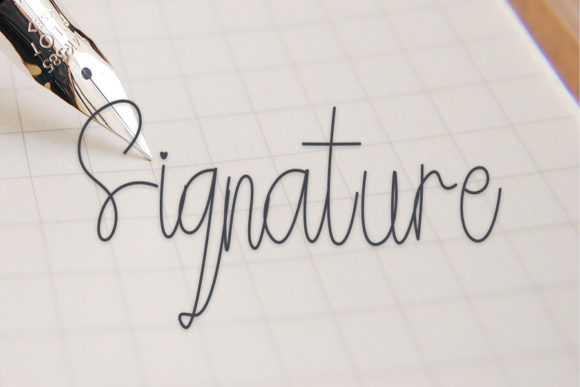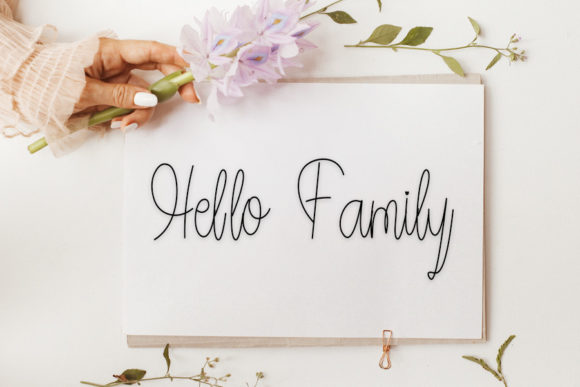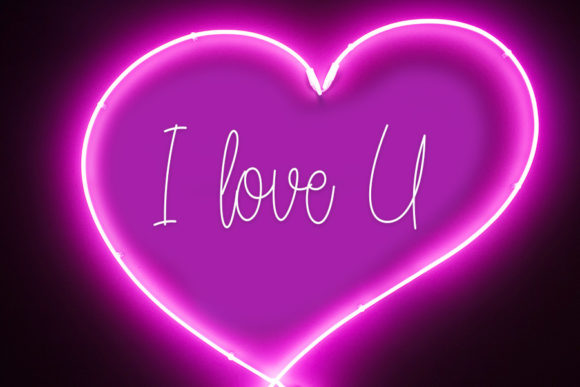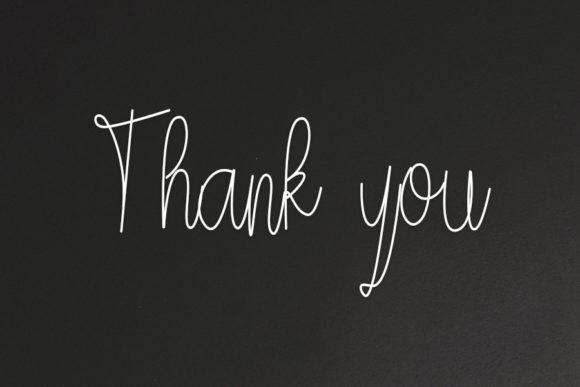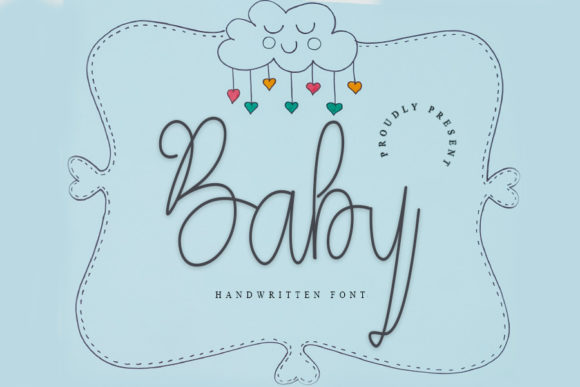
Baby Font: The Perfect Handwritten Font for Modern Designs
In the world of typography, fonts play a crucial role in making or breaking a design. A well-chosen font can elevate your project from ordinary to extraordinary, while a poorly chosen one can have the opposite effect. For designers and crafters looking for a font that exudes a modern vibe with a touch of classic elegance, Baby Font is an excellent choice. In this article, we’ll dive into the world of Baby Font, exploring its features, benefits, and uses.
What is Baby Font?
Baby Font is a cool handwritten font with a modern vibe and spotless form, inspired by classic calligraphy. As described, it’s not too thin and not too thick, making it a balanced and varied font perfect for a wide range of projects. Whether you’re working on a logo, branding, packaging, or social media graphics, Baby Font is designed to enhance the beauty of your designs.
Key Features of Baby Font
- Modern Vibe: Baby Font boasts a modern vibe that’s perfect for designs that require a fresh and contemporary look.
- Balanced and Varied: The font’s balanced and varied strokes make it easy to read and visually appealing.
- Inspired by Classic Calligraphy: Baby Font’s roots in classic calligraphy give it an air of elegance and sophistication.
- Spotless Form: The font’s spotless form ensures that your designs look clean and professional.
Benefits of Using Baby Font
- Versatility: Baby Font is versatile and can be used for a wide range of projects, from logos and branding to packaging and social media graphics.
- Elegance: The font’s classic calligraphy inspiration gives it an air of elegance and sophistication, making it perfect for designs that require a touch of luxury.
- Readability: Baby Font’s balanced and varied strokes make it easy to read, ensuring that your message gets across clearly.
- Uniqueness: Baby Font’s modern vibe and spotless form make it a unique addition to any design, setting it apart from more traditional fonts.
- Use it for Headings: Baby Font is perfect for headings and titles, where its elegant and sophisticated look can shine.
In conclusion, Baby Font is a beautiful and versatile handwritten font that’s perfect for designers and crafters looking for a modern and elegant touch in their designs. With its balanced and varied strokes, classic calligraphy inspiration, and spotless form, Baby Font is sure to elevate your projects to the next level. Whether you’re working on a logo, branding, packaging, or social media graphics, Baby Font is an excellent choice for adding a touch of sophistication and elegance.